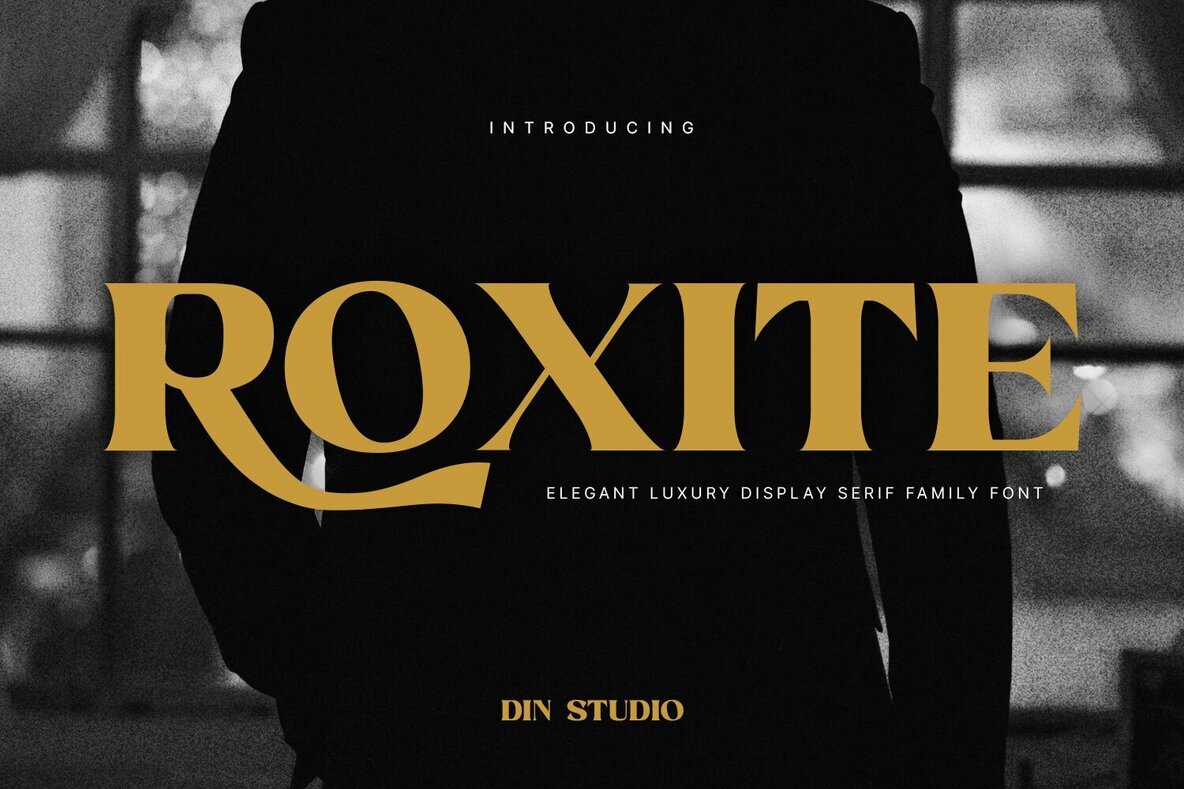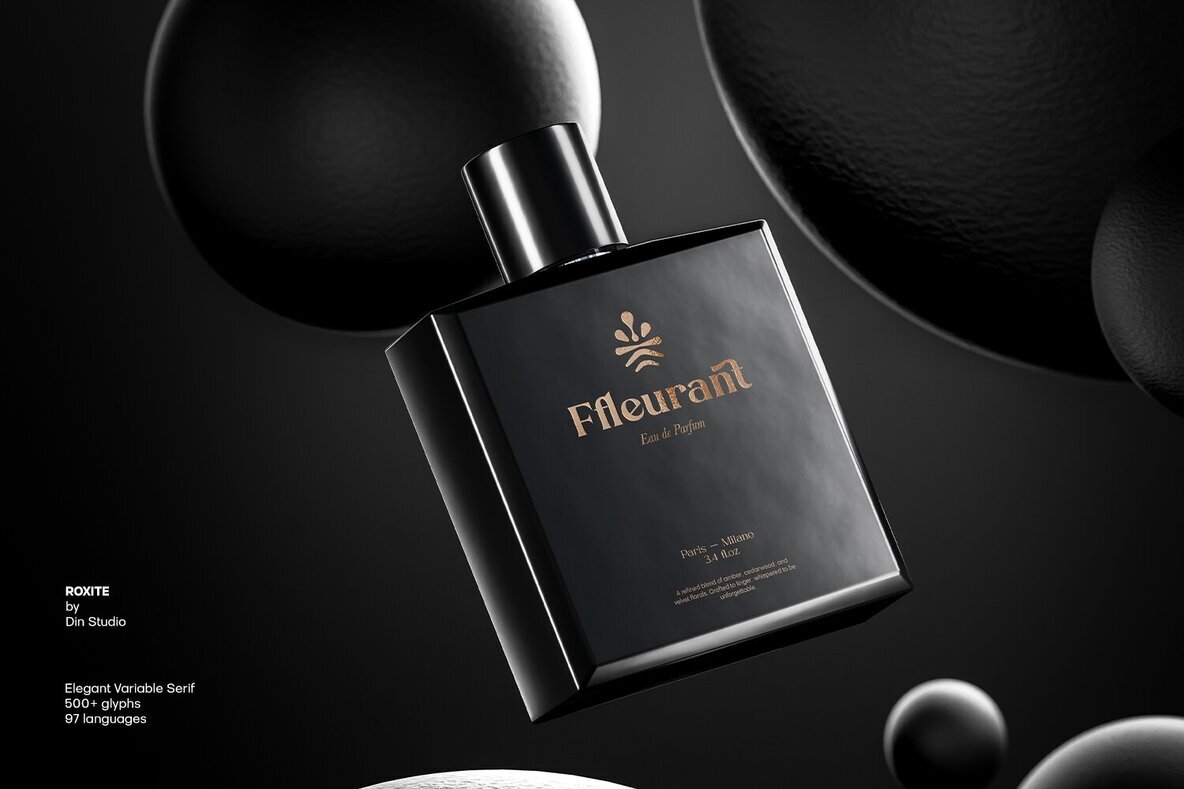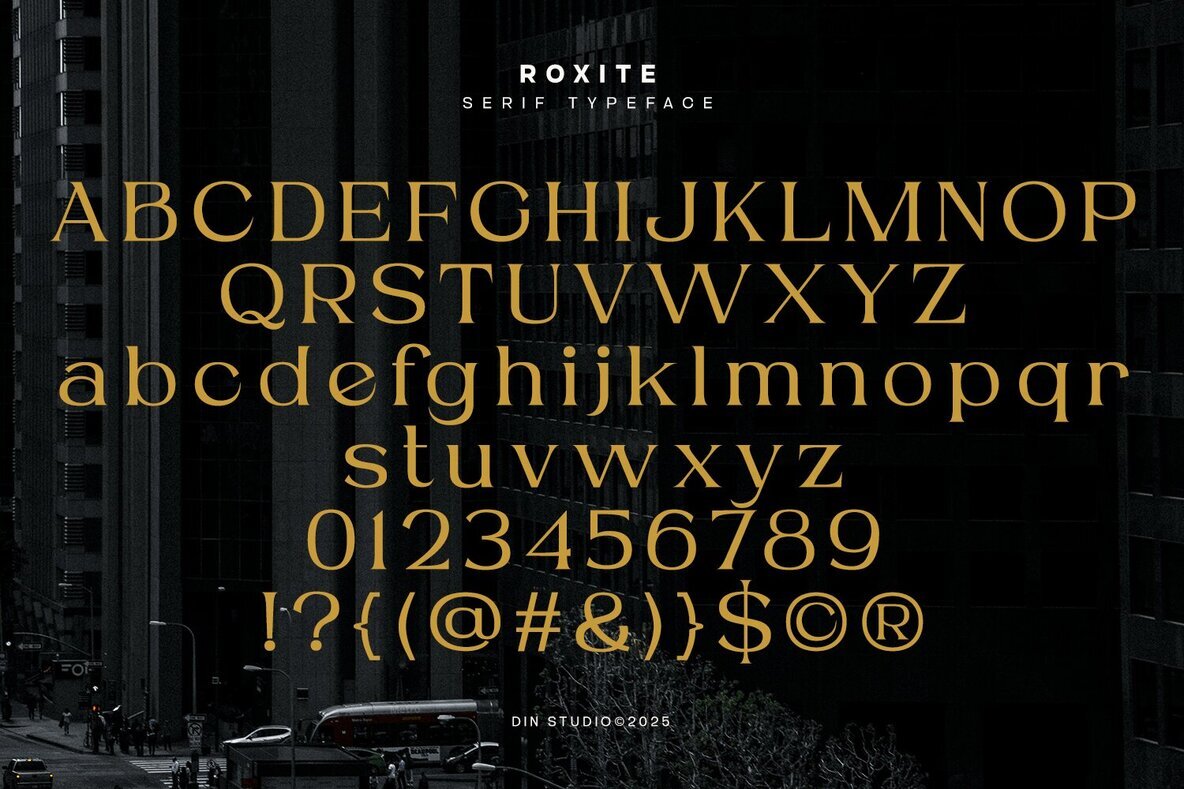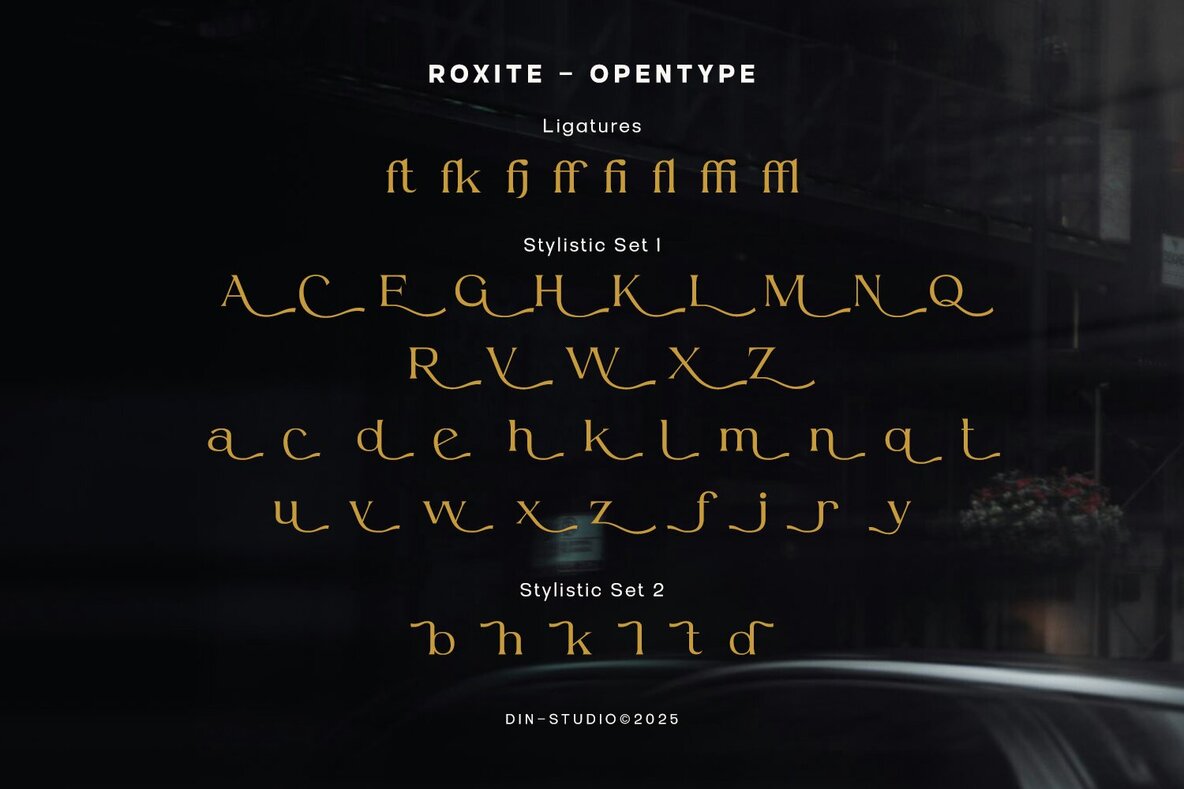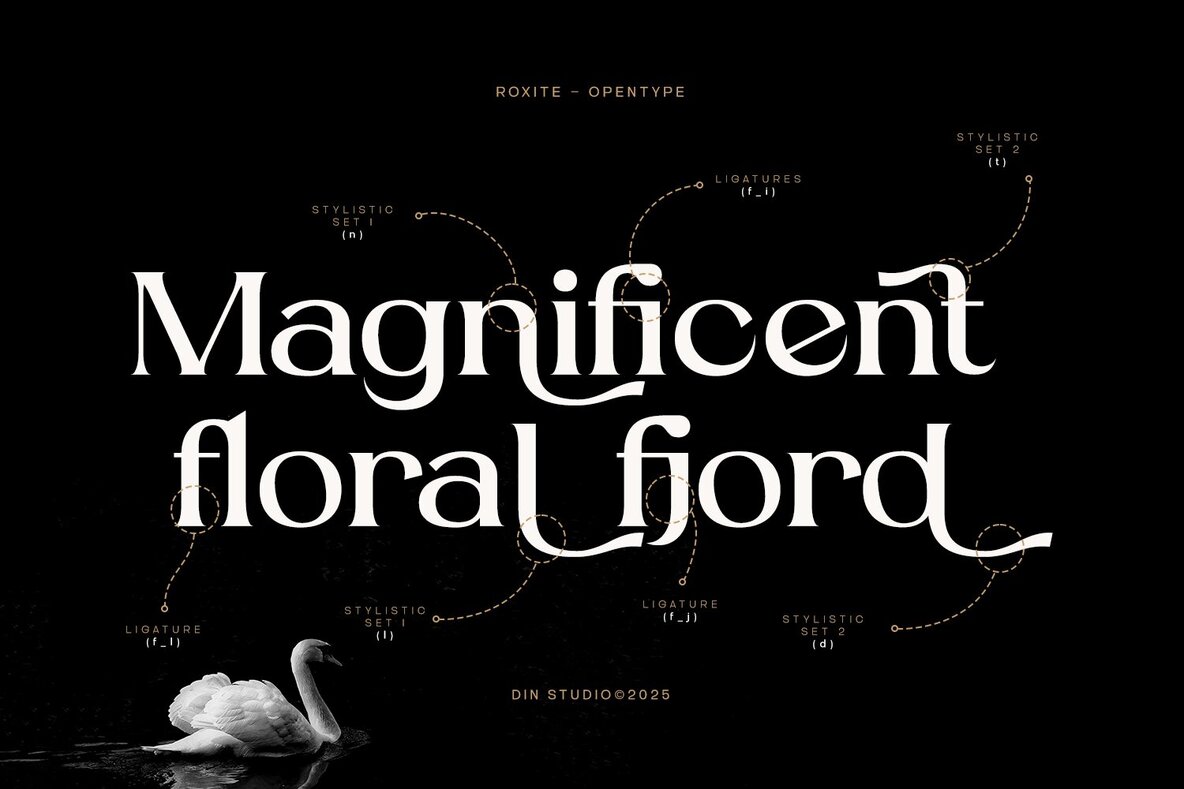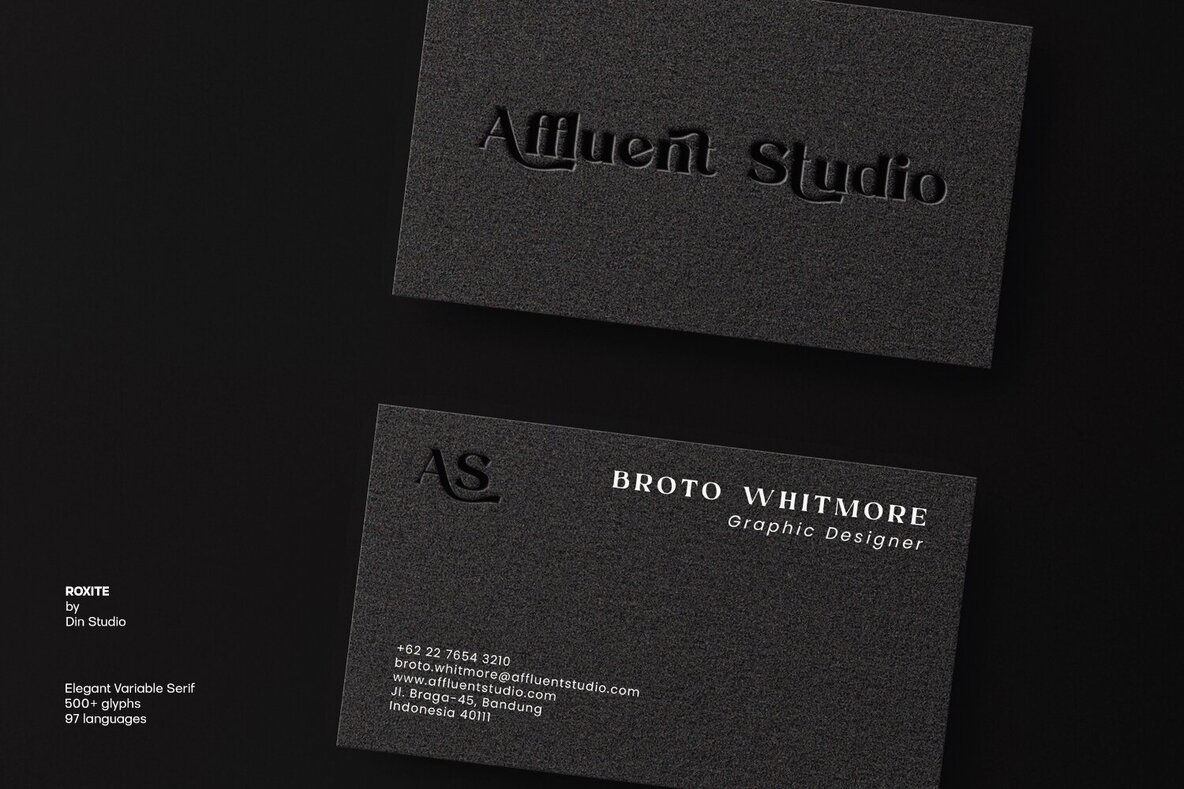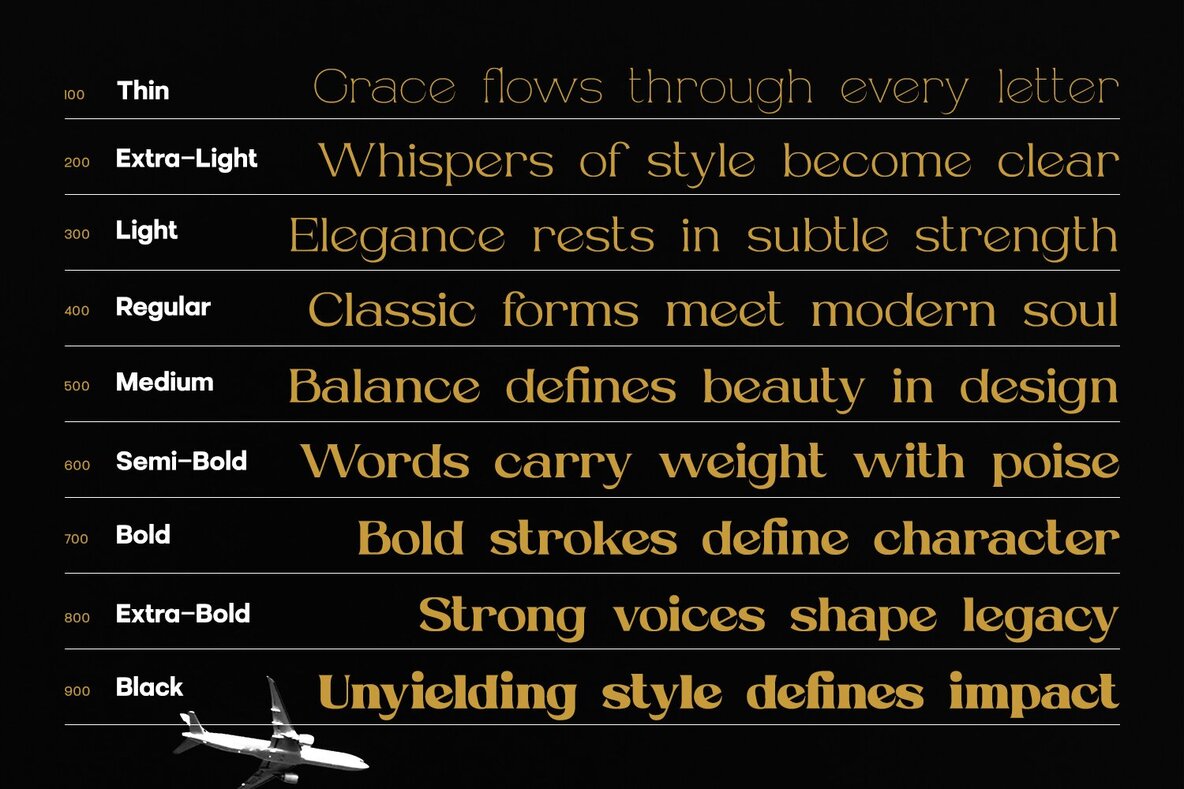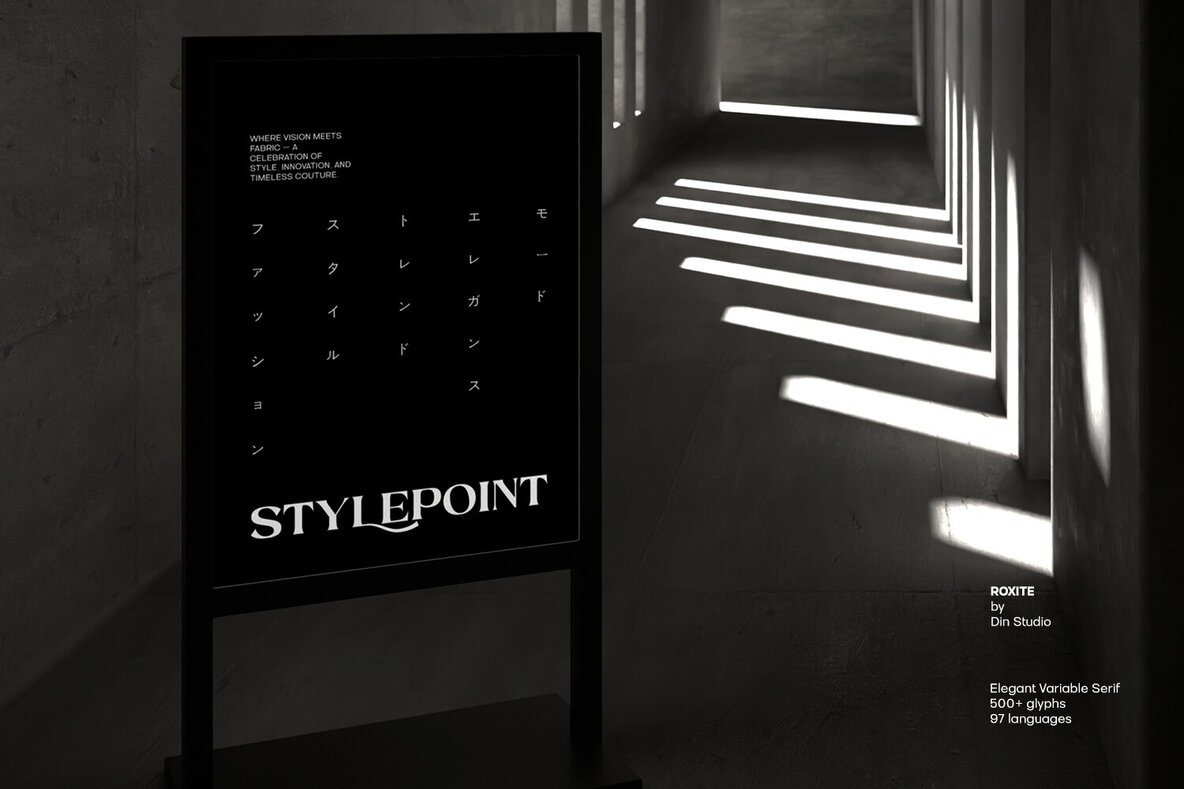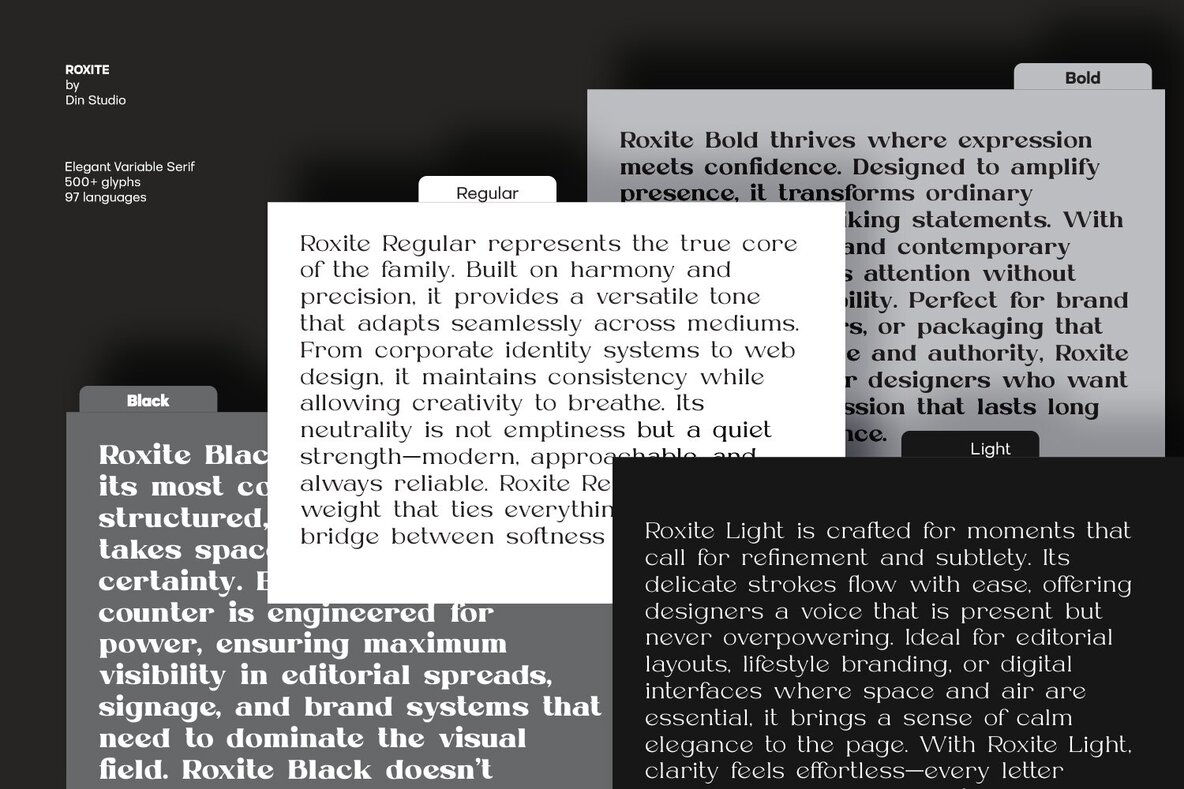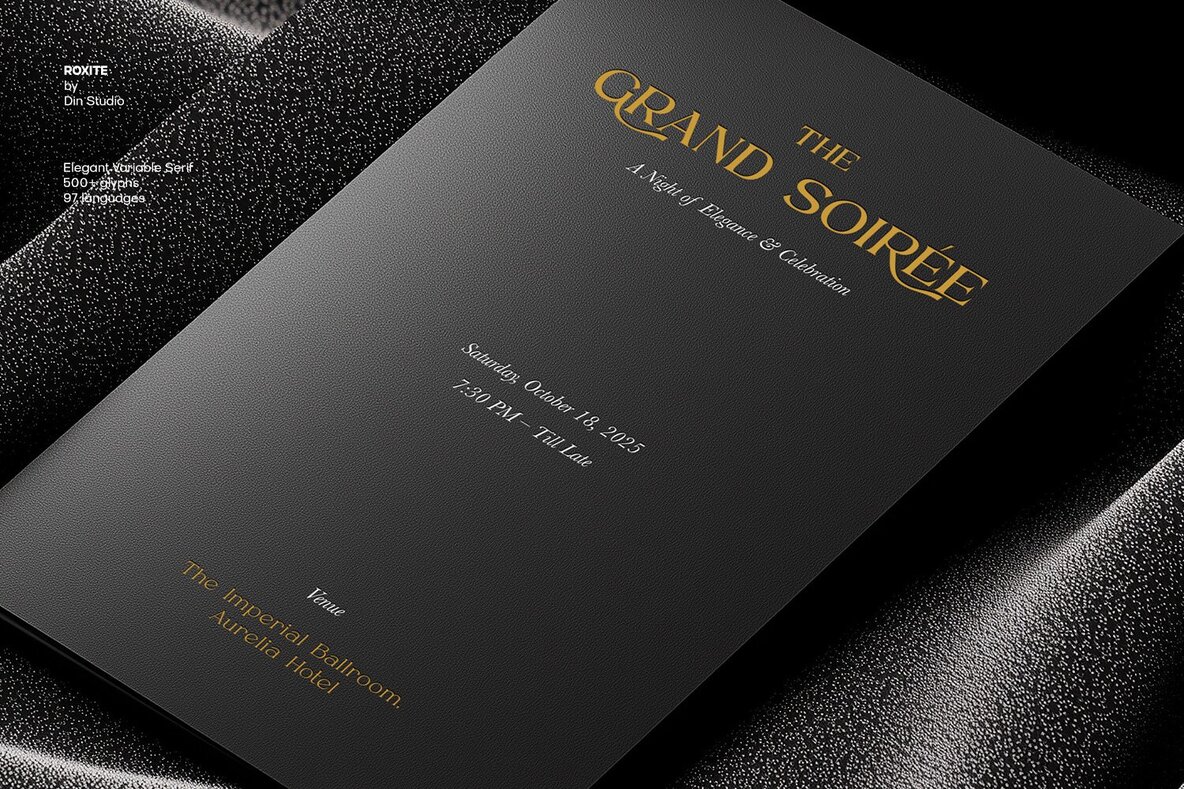
Roxite Font
Roxite introduces an elegant serif display font, thoughtfully designed for projects that demand a refined, high-end aesthetic. Every detail—from its precisely sculpted curves to its balanced serifs—reflects a sophisticated sensibility. Roxite brings together classic letterform proportions with a clean, modern approach, making it well-suited for designers developing distinctive, upscale visual identities. This versatile font family offers nine unique weights and styles, giving you options to match any design direction. Its adaptability ensures seamless integration across branding, editorial layouts, logos, posters, apparel, and more. Roxite stands out in both contemporary and timeless applications, helping your work achieve a polished, cohesive look.Roxite Serif Display Font Family